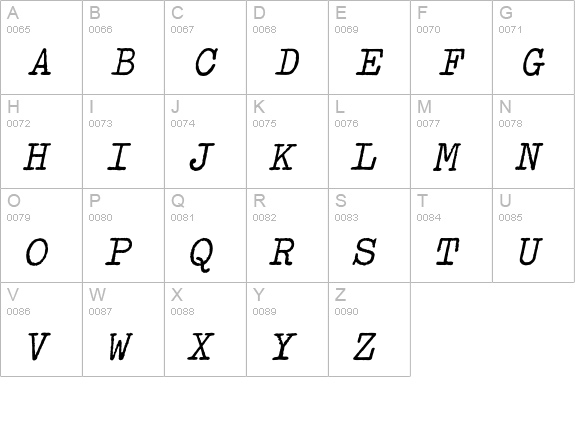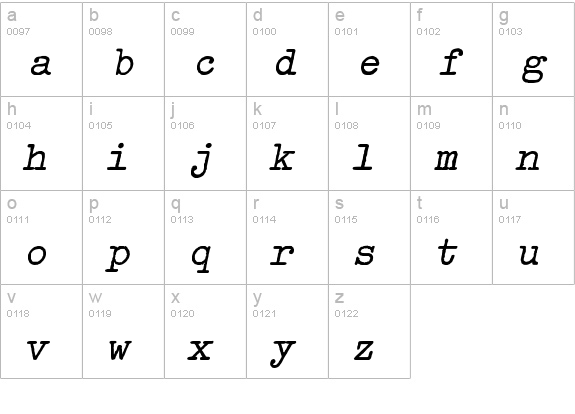
OldTypewriterEF-BoldObl Font Details
OldTypewriterEF-BoldObl is a classic and stylish font that exudes a sense of nostalgia and vintage charm. The bold and oblique design adds a touch of elegance to any project, making it perfect for adding a unique flair to your designs. This versatile font is perfect for creating eye-catching headlines, logos, posters, and more. What's even better is that OldTypewriterEF-BoldObl is available for free download at FontsMarket.com. Now you can add this beautiful font to your collection without any cost. Don't miss out on the opportunity to enhance your designs with this timeless and elegant typeface. Download OldTypewriterEF-BoldObl today and let your creativity shine!